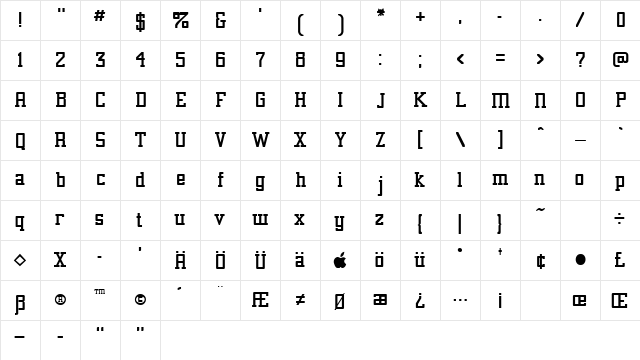
Alexandria.fog fog Font Preview
Alexandria.fog fog
Design Context for Alexandria.fog Typeface
Alexandria.fog takes a measured approach to typography — its balanced proportions and neutral character make it a reliable workhorse for both digital and print work.